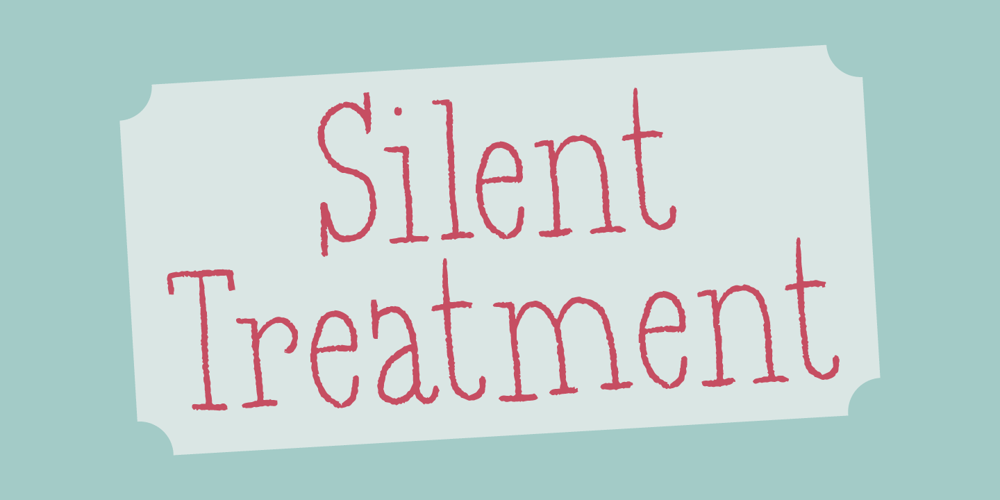
Silent Treatment Font Family was designed by Jakob Fischer and published by PizzaDude.dk. Silent Treatment contains 2 styles and family package options. Crayon meets serif! A steady and legible handmade font with ligatures for double letter substitution. Of course the font is stuffed with international letters!